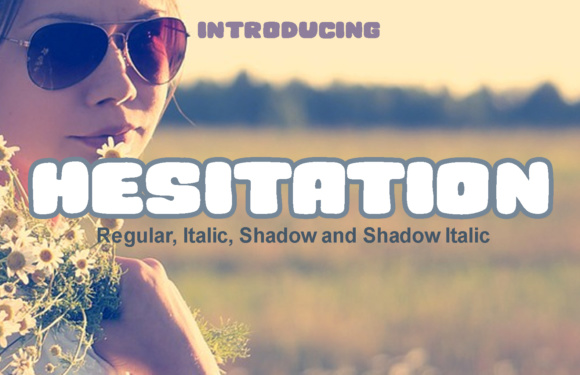
Introducing Hesitation Font, an enchanting display font family that captivates with its playful and spirited nature. Designed by the talented Vladimirnikolic, Hesitation takes you on a delightful journey of creative expression.
Dive into the world of Hesitation and discover its four mesmerizing styles: Regular, Italic, Shadow, and Shadow Italic. Each style dances across your screen with its own unique charm, inviting you to explore endless possibilities.
Hesitation's Regular style captures the essence of joy and cheerfulness. Its rounded curves and bubbly letters create a sense of warmth and optimism, making it the perfect choice for adding a touch of fun to your projects.
Hesitation's Italic style adds a touch of elegance and sophistication to your designs. Its slanted strokes and flowing characters bring a sense of movement and energy, making it ideal for creating eye-catching headlines, logos, and invitations.
For those seeking a bit of drama, Hesitation's Shadow style delivers. This captivating style casts a subtle yet striking shadow beneath each letter, adding depth and dimension to your text. Use it to create impactful posters, flyers, and social media graphics that demand attention.
And if you truly want to make a statement, Hesitation's Shadow Italic style is the ultimate showstopper. Combining the charm of the Italic style with the boldness of the Shadow style, this font exudes confidence and creativity. It's perfect for creating unforgettable branding, packaging, and marketing materials that leave a lasting impression.
But Hesitation isn't just stunning; it's also incredibly versatile. Its playful spirit and wide range of styles make it suitable for a variety of projects, from whimsical invitations and greeting cards to bold posters and flyers. Add a touch of whimsy to your blog posts, social media updates, and even product packaging.
With Hesitation Font, you have the power to transform your creative visions into captivating realities. Its bubbly personality and boundless versatility make it the perfect choice for designers, marketers, and anyone looking to add a touch of magic to their projects. Embrace the joy of Hesitation and let your creativity soar.